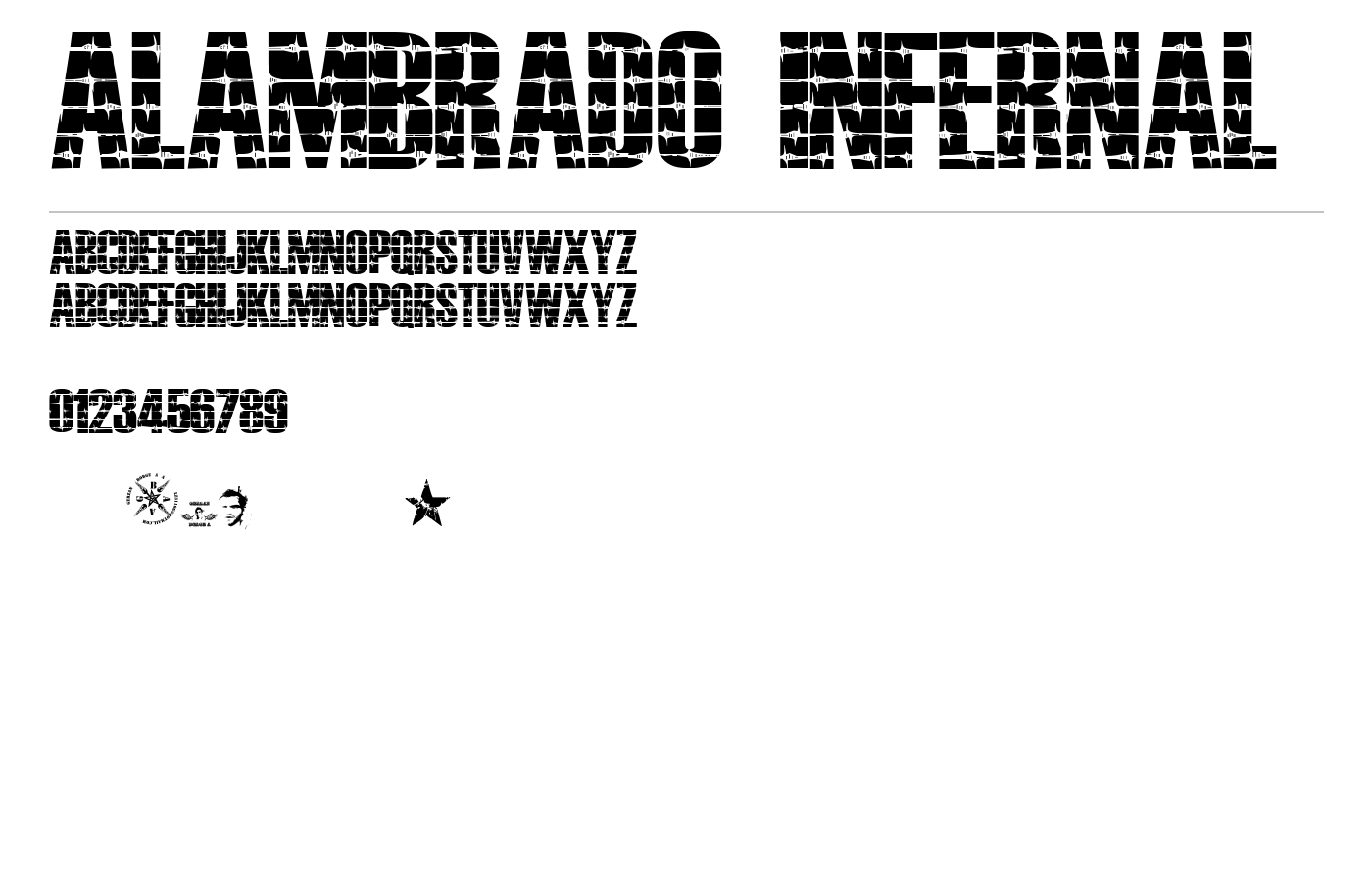
Alambrado Infernal is a bold, condensed display font featuring a striking stencil design that mimics barbed wire, giving it a rugged, industrial feel. Its strong, blocky letterforms with high contrast and sharp edges make it perfect for attention-grabbing headlines, logos, and posters that need a tough, rebellious, or edgy vibe. This font works well in projects related to urban culture, music, or any theme demanding a raw and powerful visual impact.
ALAMBRADO INFERNAL Font
About ALAMBRADO INFERNAL Font